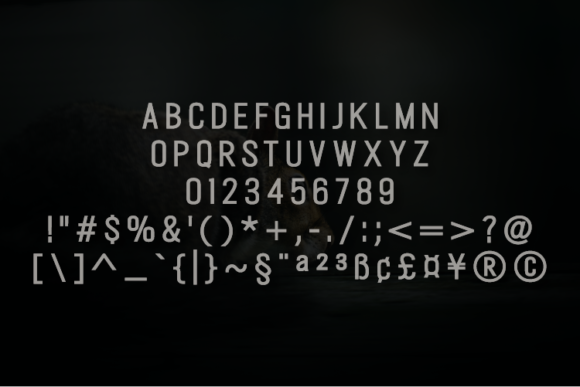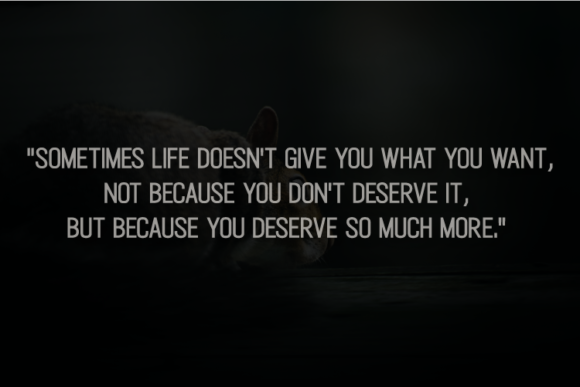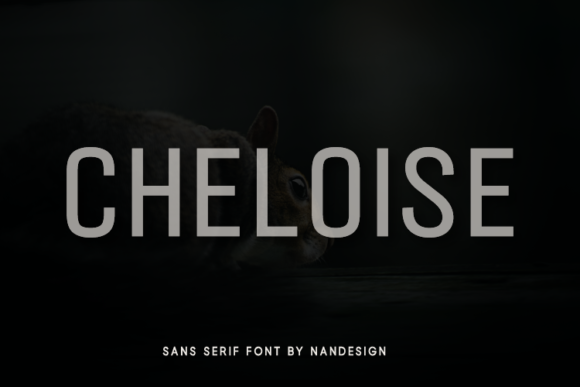
Introducing Cheloise Font: Elevate Your Designs with Elegance
Are you tired of using the same old fonts in your designs? Look no further than Cheloise Font, a stunning sans serif font that is sure to take your creations to the next level. With its sleek and sophisticated arrangement of letters, Cheloise is the perfect choice for designers and crafters looking to add a touch of elegance to their work.
What Makes Cheloise Font So Special?
Cheloise Font is a beautifully crafted sans serif font that boasts a neat and organized arrangement of letters. Its clean lines and precise curves make it a versatile choice for a wide range of design applications, from formal and corporate to non-formal and creative. Whether you’re designing a logo, brochure, or social media graphic, Cheloise is sure to make a lasting impression.
Key Features of Cheloise Font
• Elegant Sans Serif Design: Cheloise features a sleek and modern sans serif design that is perfect for creating sophisticated and professional-looking designs.
• Neat and Organized Letter Arrangement: The font’s letters are carefully arranged to create a clean and harmonious look that is easy on the eyes.
• Versatile and Adaptable: Cheloise is suitable for a wide range of design applications, from formal and corporate to non-formal and creative.
• Easy to Read: The font’s clear and precise lines make it easy to read, even at small sizes.
How to Use Cheloise Font in Your Designs
Cheloise Font is incredibly easy to use and can be incorporated into your designs in a variety of ways. Here are a few ideas to get you started:
• Logos and Branding: Use Cheloise to create a sophisticated and professional-looking logo that will help establish your brand’s identity.
• Print Materials: Add a touch of elegance to your brochures, flyers, and business cards with Cheloise.
• Digital Designs: Use Cheloise to create stunning social media graphics, website headers, and email newsletters.
• Crafting and DIY Projects: Add a personal touch to your crafting and DIY projects, such as handmade cards and gift tags, with Cheloise.
Why Designers and Crafters Love Cheloise Font
Designers and crafters love Cheloise Font for its versatility, elegance, and ease of use. Here are a few reasons why:
• Unique and Creative: Cheloise offers a fresh and unique alternative to traditional fonts.
• Time-Saving: The font’s clear and precise lines make it easy to read and work with, saving you time and effort.
• Professional-Looking Results: Cheloise helps you create professional-looking designs that are sure to impress.
Font Name Cheloise Font
Author Nan Design
In conclusion, Cheloise Font is a stunning sans serif font that is sure to elevate your designs and take them to the next level. With its elegant design, neat and organized letter arrangement, and versatility, Cheloise is the perfect choice for designers and crafters looking to add a touch of sophistication to their work. So why wait? Try Cheloise Font today and see the difference it can make in your designs!